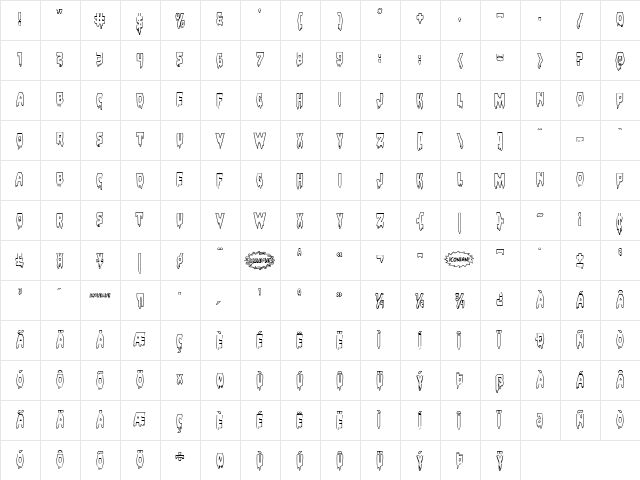
Bloodlust Outline Regular
Design Context for Bloodlust Outline Typeface
Bloodlust Outline leans into the macabre with letterforms designed to disturb and intrigue in equal measure.
Ideal for Halloween projects, horror film titles, haunted house signage, and dark editorial design.
Font Pairing: Pair with a clean neutral sans-serif for body copy to let Bloodlust Outline's character lead without overwhelming the composition.
Pro Tip: Bloodlust Outline works best as a headline or focal element. Pair it against plain, neutral body text to amplify the contrast.